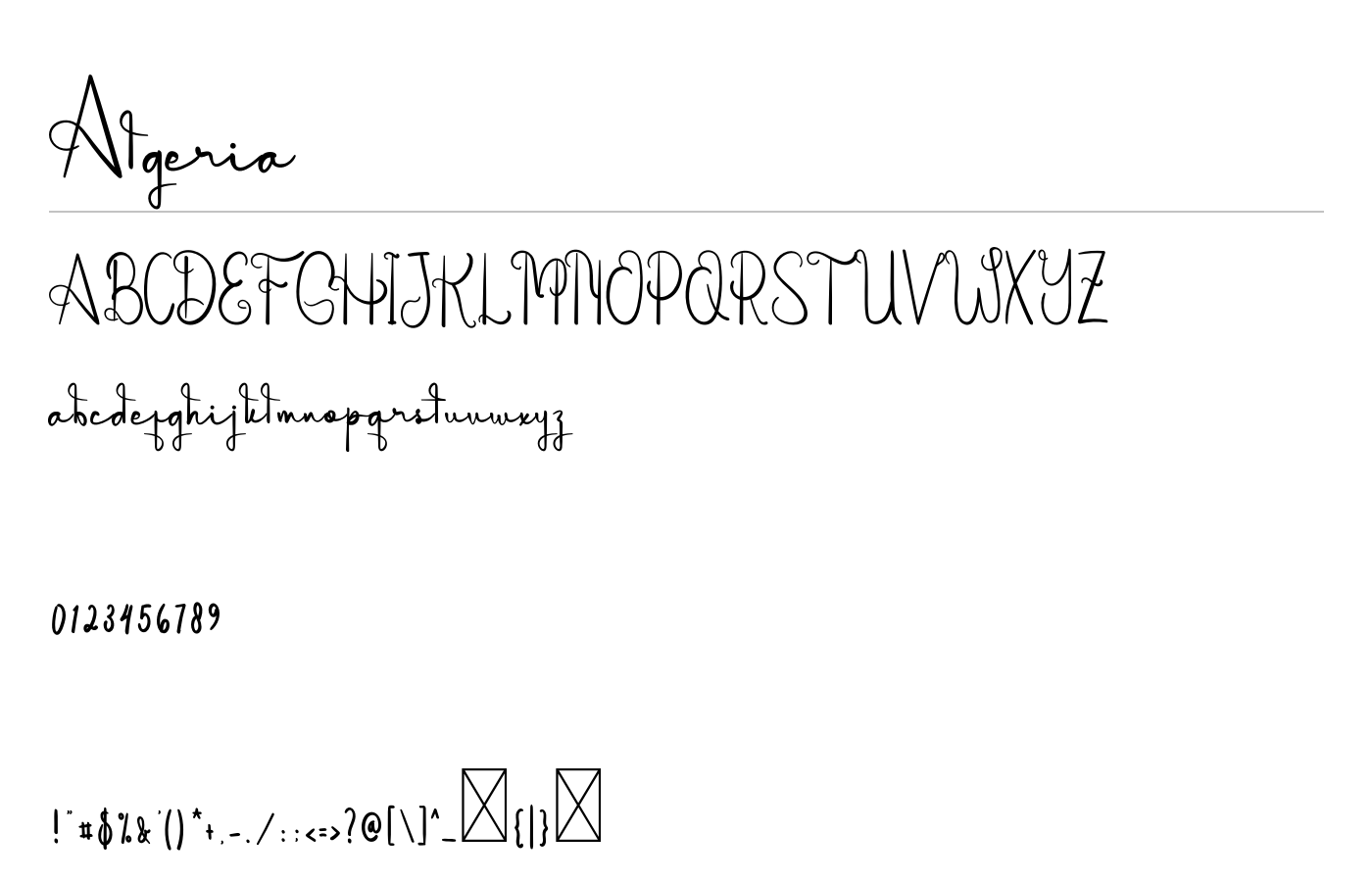
Algeria is a whimsical, decorative serif font characterized by its tall, narrow letterforms and playful curls on many strokes, giving it a hand-crafted, almost calligraphic feel. Its light weight and delicate lines make it ideal for creative and elegant design projects, such as invitations, logos, or branding that seeks a charming and artistic touch. This font works best in headlines or display settings where its distinctive style can shine without losing readability.
Algeria Font
About Algeria Font